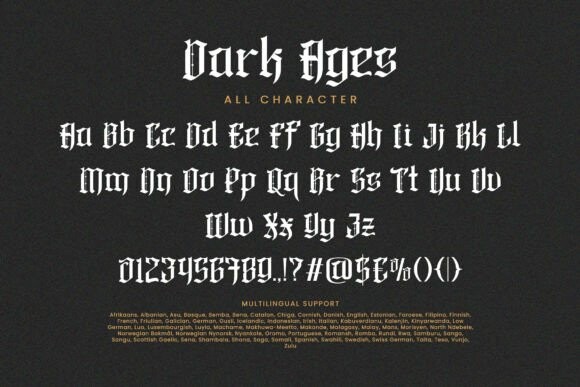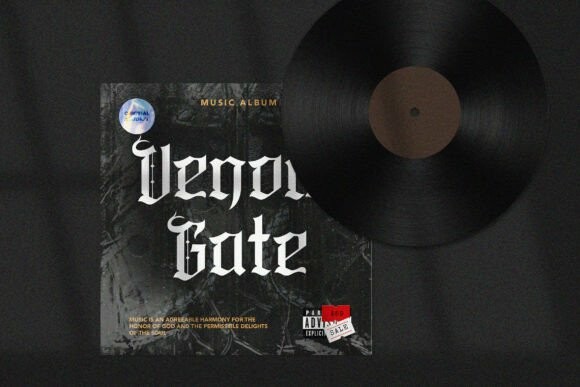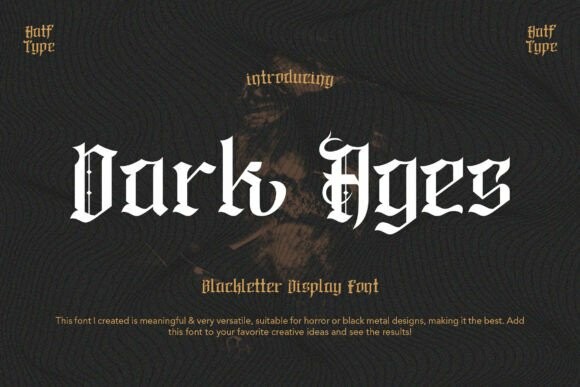
Dark Ages Font
Dark Ages Font is a spellbinding blackletter display font that transports you into the enigmatic and regal ambience of the Middle Ages. It’s meticulously crafted, drawing inspiration from the iconic typography featured in timeless manuscripts and dramatic gothic script. Embodied within DARK AGES is a harmonious fusion of traditional influences and contemporary flair, presenting a distinctive aesthetic that radiates strength and character.